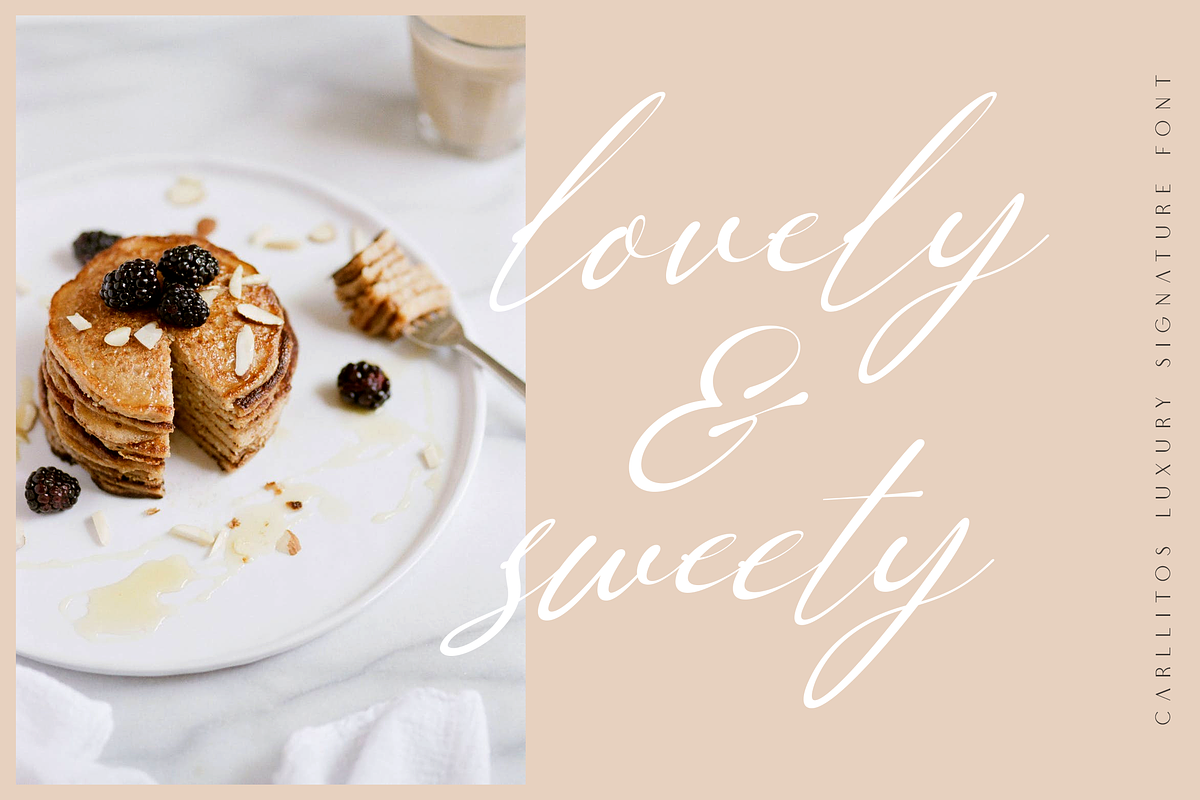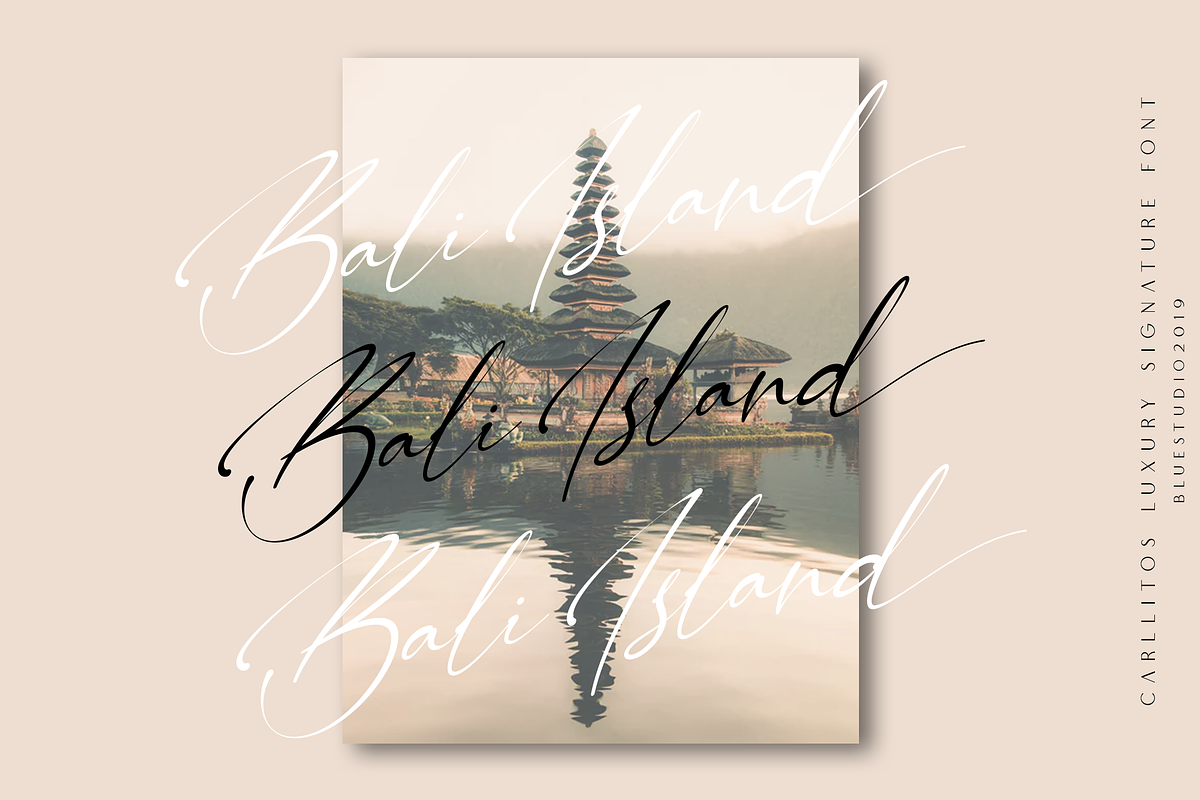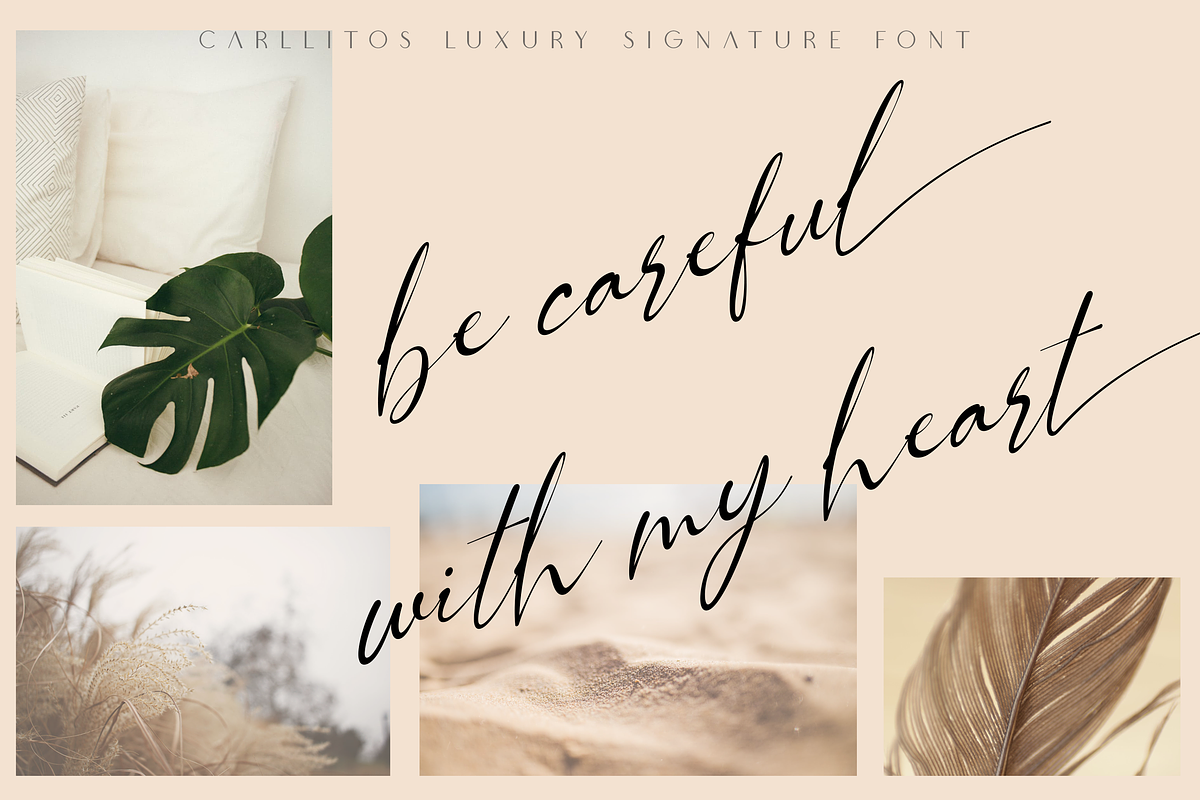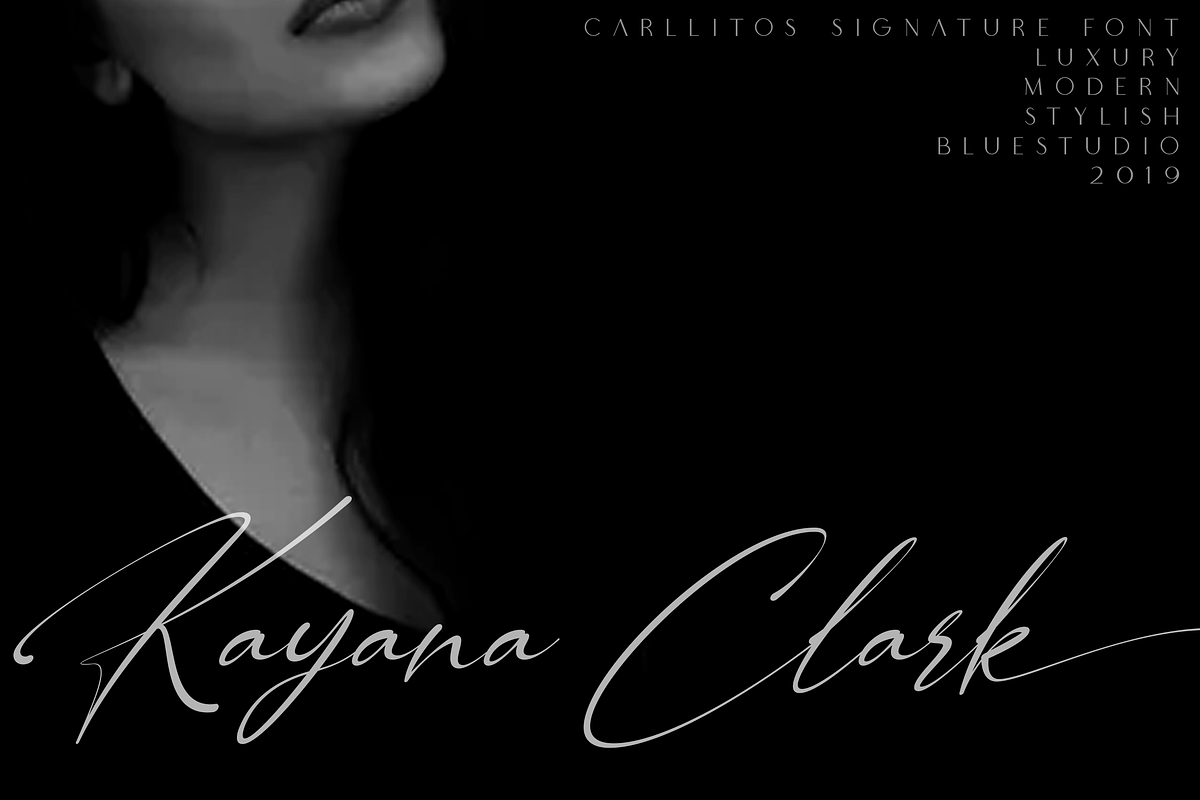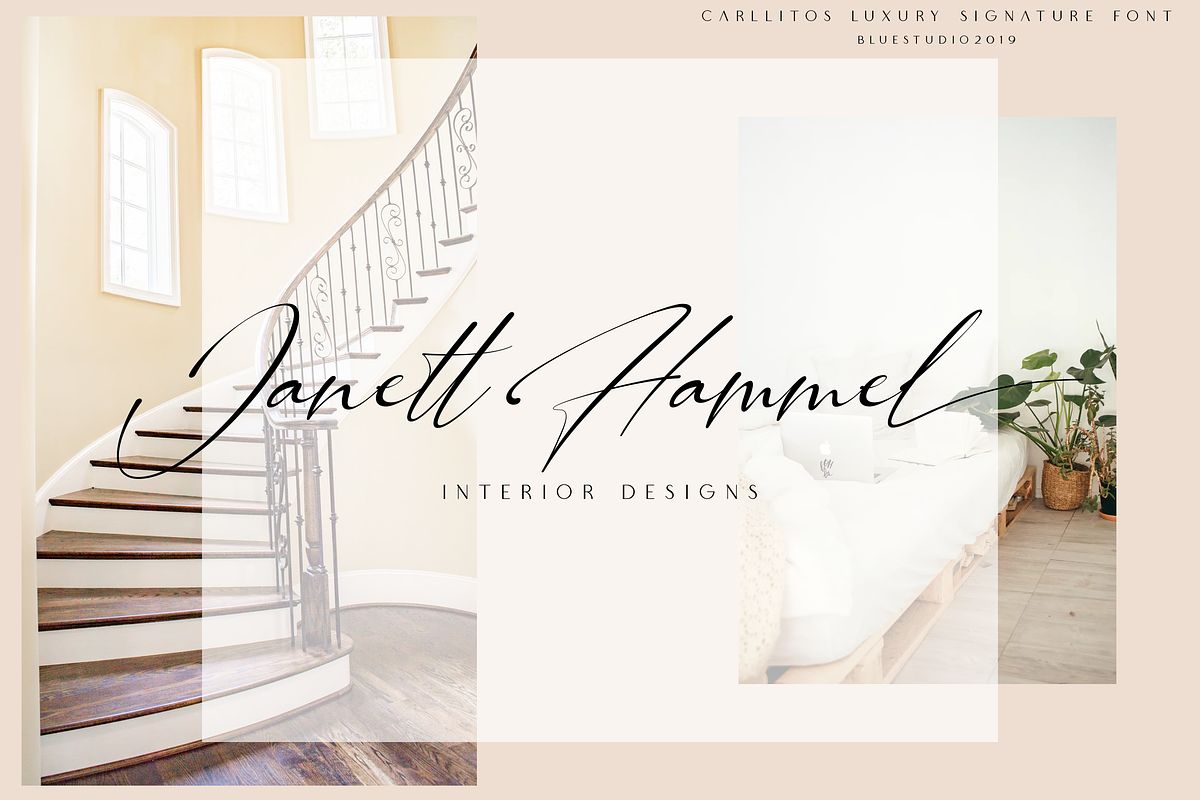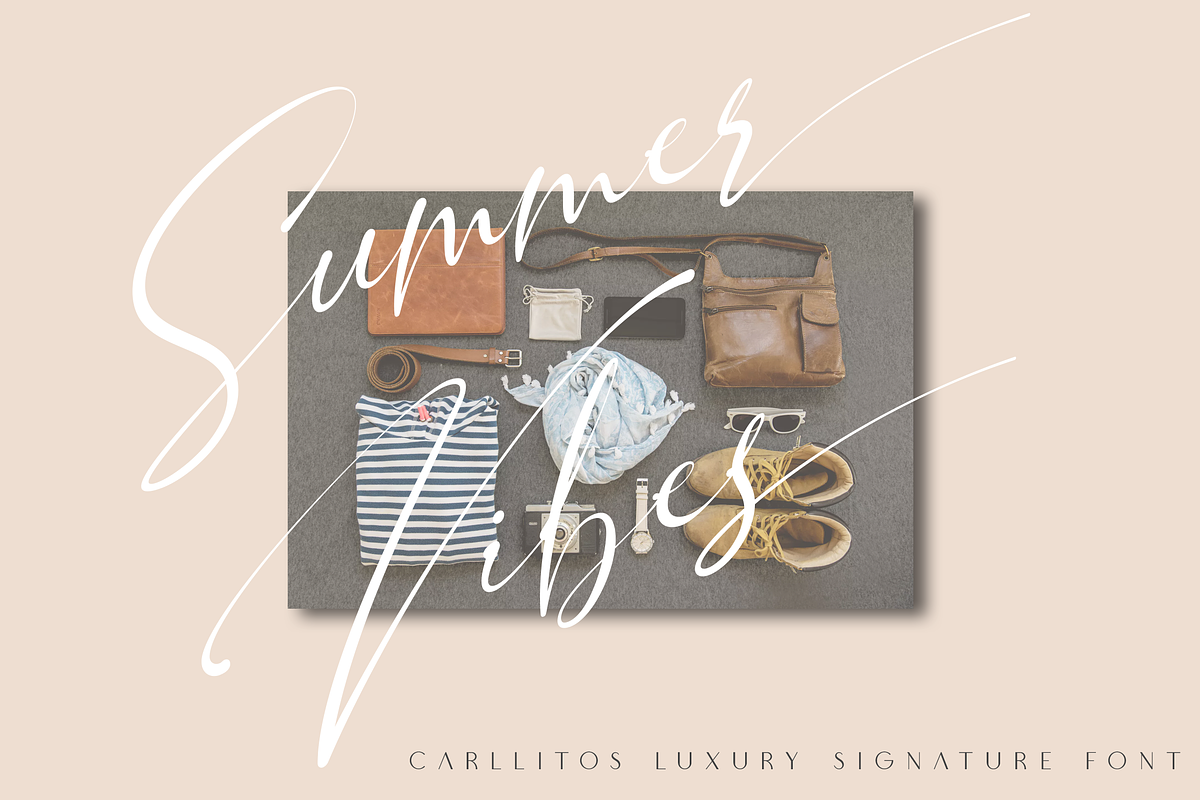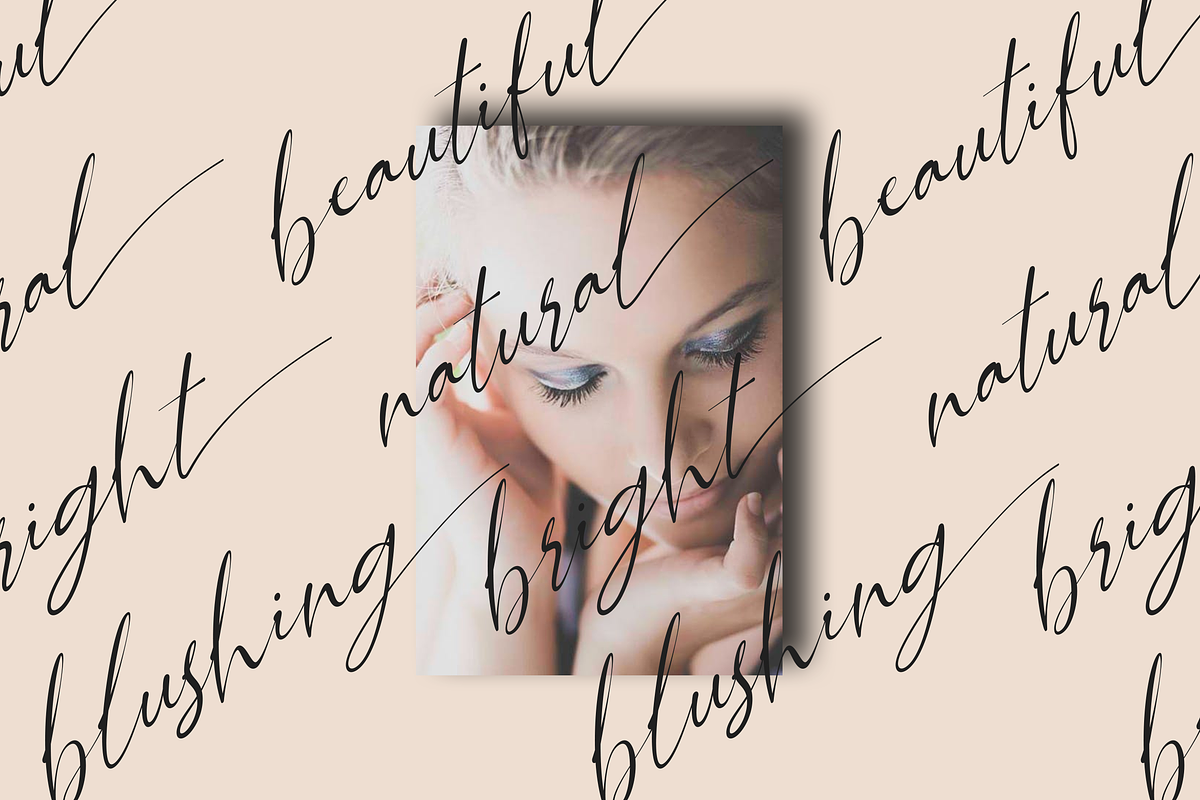
Carllitos // Luxury Signature Font
Introducing our latest product Carllitos luxury Signature Font.
Carllitos is made to resemble hand scratches, so it looks like a natural style like your own hand scratches.
Carllitos offer beautiful typographic harmony for a variety of design projects, including watermark, logos,branding, wedding designs, social media posts, advertisements, product designs, magazines and others.
Carllitos // Luxury Signature Font by Bluestudio fits naturally into Branding, posters, packaging, typography.